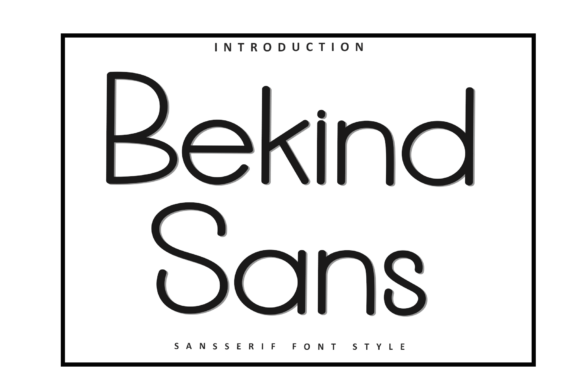
Bekind Sans
The first time I saw Bekind Sans, I felt a quiet confidence. It’s not flashy, but it carries weight. The letters are clean and deliberate, with a subtle warmth that makes them feel approachable yet professional. It’s the kind of typeface that doesn’t demand attention but earns it through its balance and clarity. This is a sans serif font with a personality—modern without being cold, friendly without being childish.
Bekind Sans feels like a reliable companion for a variety of design projects. Its structure is consistent, making it ideal for both digital and print applications. I immediately thought of branding scenarios where a font needs to be versatile and trustworthy. Whether it's a logo, a website header, or a product label, Bekind Sans has the potential to communicate professionalism while maintaining a human touch.
In logo design, Bekind Sans can serve as a strong foundation. It works well with minimalistic approaches, allowing the visual identity to focus on the imagery rather than the text. However, I would caution against using it in overly complex logos where the simplicity of the font might get lost. For brand identity, it offers a solid base that can be paired with other fonts to create a cohesive system. Pairing it with a serif font for contrast or a script font for flair could add depth to a brand’s visual language.
When it comes to packaging design, Bekind Sans brings a sense of order and clarity. It’s especially effective on product labels where readability is key. The font’s clean lines make it easy to read at a glance, which is essential for consumer engagement. I’ve seen similar fonts used in premium packaging, and Bekind Sans has the potential to fit into that category if used with care.
For editorial design, Bekind Sans can be a great choice for body text. It’s readable at smaller sizes and maintains legibility even when scaled down. However, it’s not the most traditional choice for long-form content, so I’d recommend testing it in real mockups before committing to a full layout. In web design, it performs well across different screen sizes, though I always suggest checking small-size readability and ensuring it looks good in black and white.
Social media graphics often require fonts that are both legible and eye-catching. Bekind Sans can work here, especially for headlines or short phrases. But I’d advise using it sparingly in decorative accents or quotes to avoid overwhelming the design. When used in social posts, it can help maintain a consistent brand voice while keeping the visuals engaging.
One thing I noticed about Bekind Sans is how it affects brand consistency. Because it’s a sans serif font, it can be paired with other sans serifs or mixed with serif fonts to create a dynamic typographic hierarchy. This flexibility is a plus, but it also means designers need to be mindful of how different styles interact. Testing it beside a display font or a handwritten font can reveal how it fits into a broader typographic ecosystem.
Readability is one of Bekind Sans’ strongest suits. It handles both uppercase and lowercase letters with ease, and the spacing between characters is well-balanced. I found it particularly useful for supporting text in flyers, invitations, and blog graphics. However, it’s not the best choice for large headlines or brand marks where a more distinctive font might be needed.
For digital products like Canva templates or Cricut projects, Bekind Sans is a practical option. It works well with printable designs and digital assets, offering a modern typography feel that aligns with current design trends. But I always recommend confirming commercial licensing before using it in client or business work, especially if the project involves resale or public distribution.
In terms of audience trust and recognition, Bekind Sans has a subtle impact. It conveys professionalism without being too rigid, which can be beneficial for brands aiming to appear approachable yet credible. However, this same quality might not be suitable for all industries. A financial institution might prefer something more traditional, while a lifestyle brand could find Bekind Sans to be a perfect match.
I also tested Bekind Sans alongside other typefaces to understand its role in font pairing. Against a serif font, it provides a clear contrast that enhances readability. When paired with a script font, it adds a touch of elegance without overpowering the design. Overall, it’s a versatile typeface that can adapt to various design contexts with the right approach.
In summary, Bekind Sans is a premium font that deserves serious consideration for real-world design projects. It’s not the most unique or dramatic typeface, but its reliability and versatility make it a valuable addition to any designer’s toolkit. Whether you're working on a logo, a poster, or a website, Bekind Sans offers a balanced approach that prioritizes clarity and consistency. Just remember to test it thoroughly, consider your project’s specific needs, and ensure you have the proper licensing for commercial use.